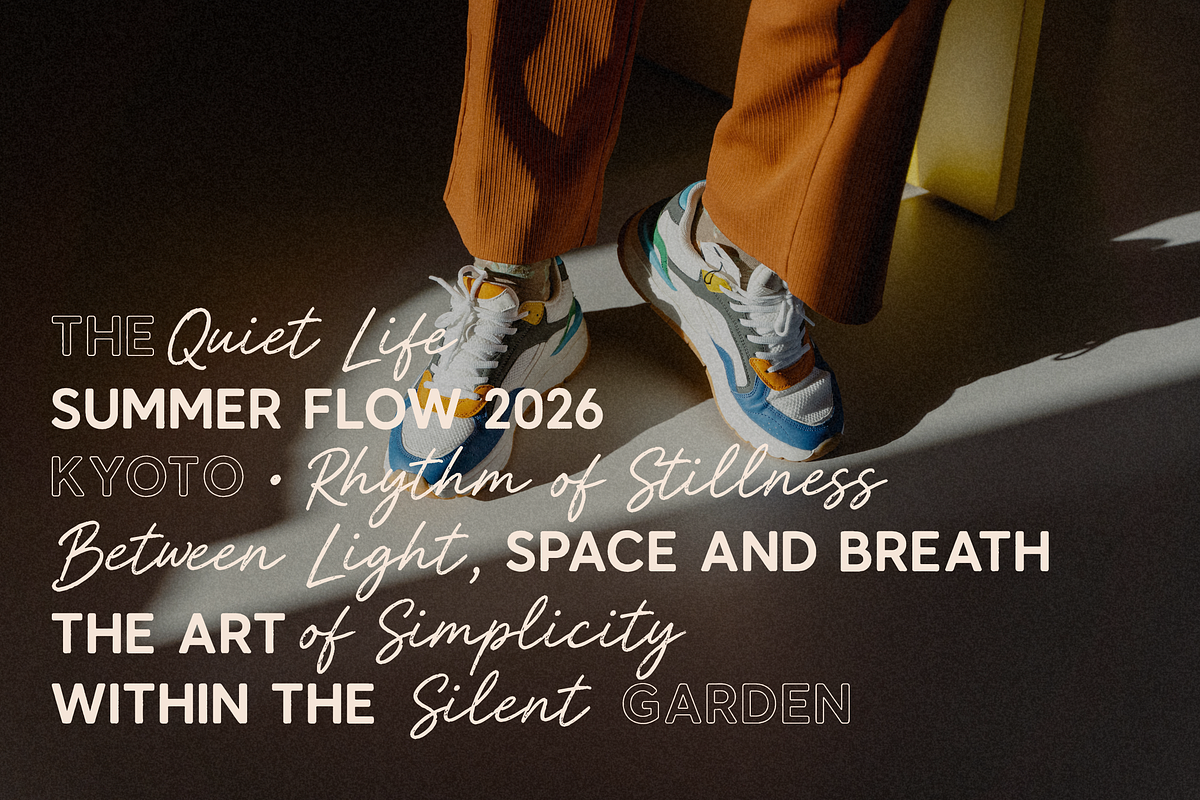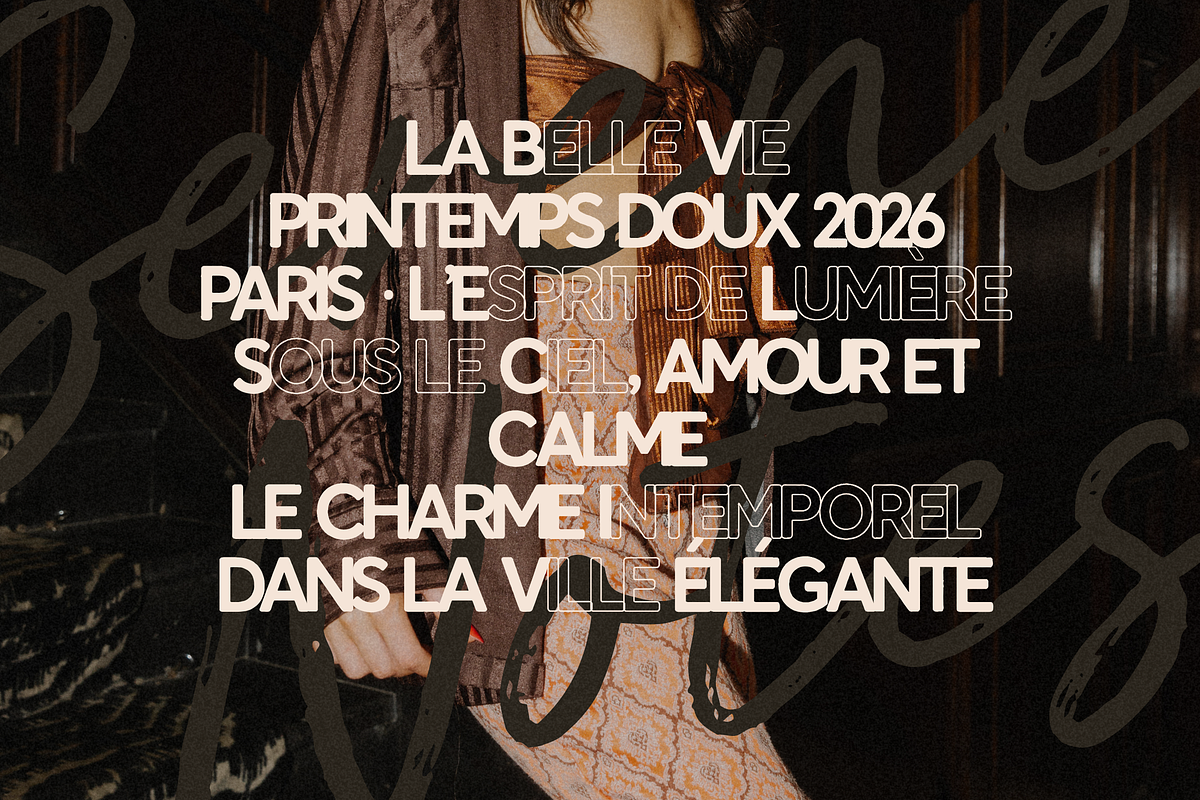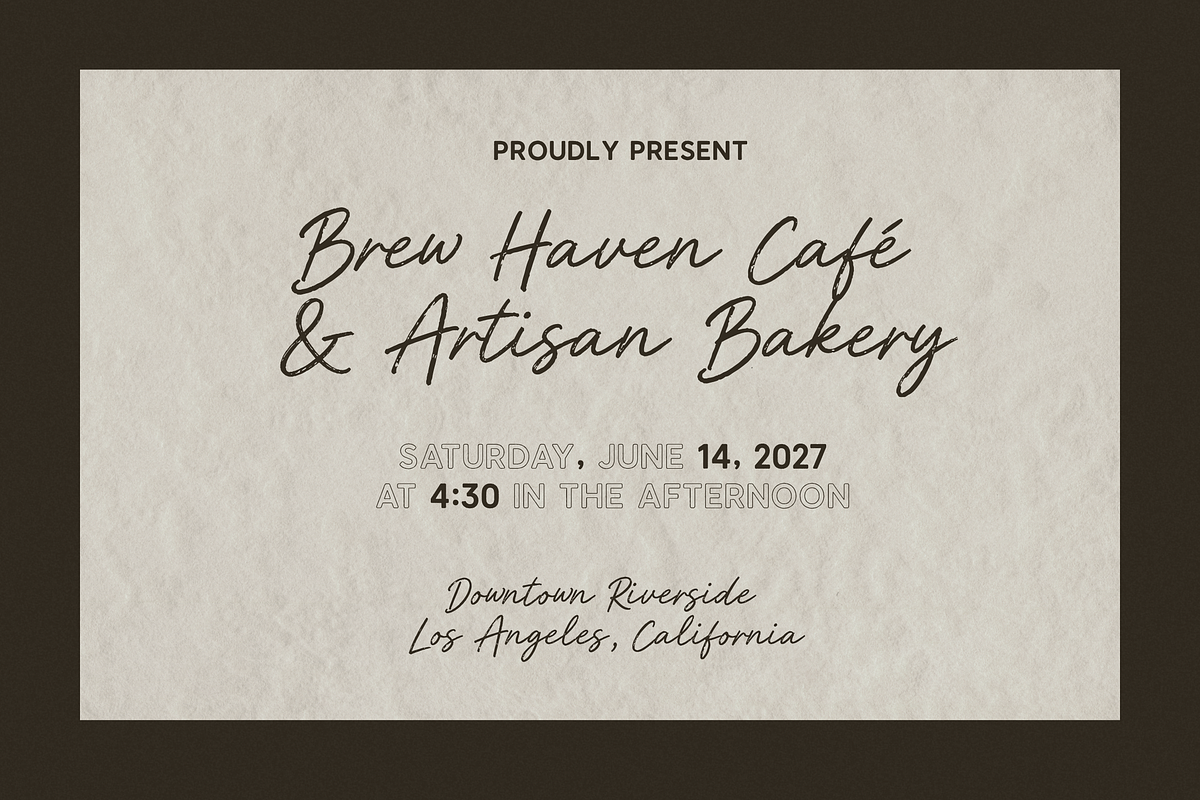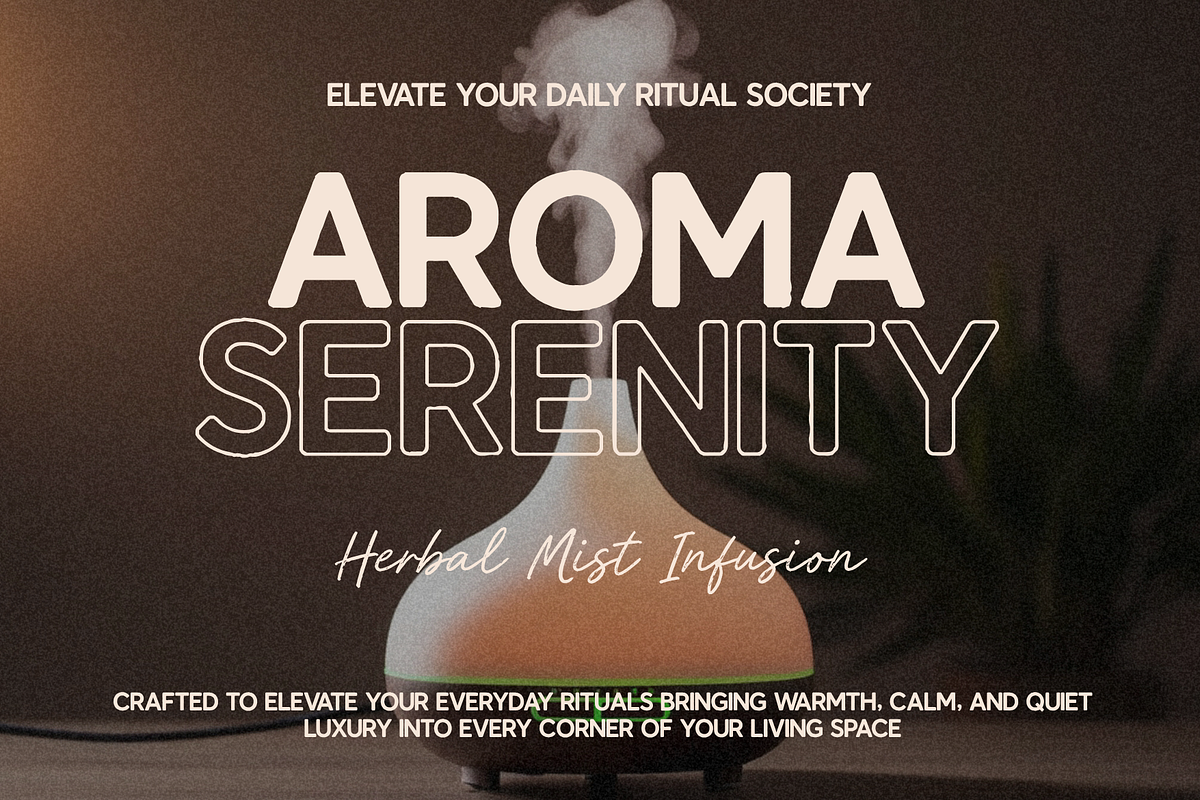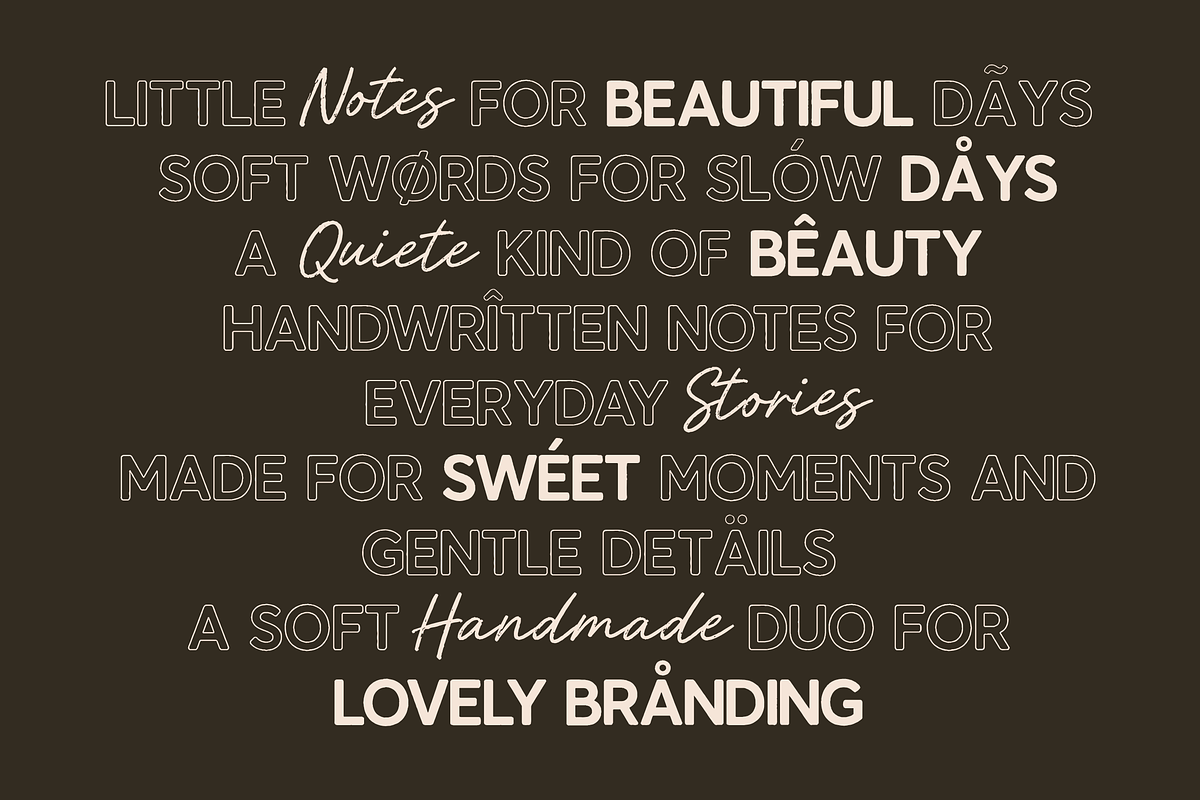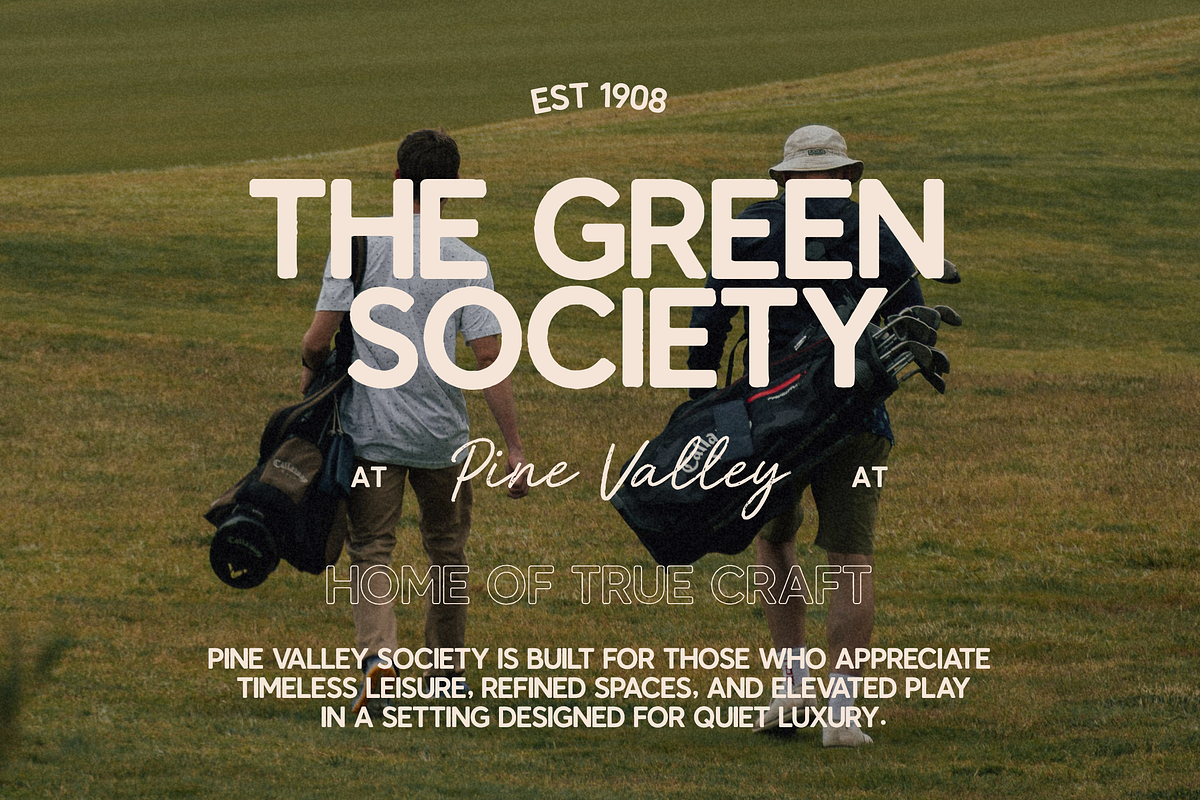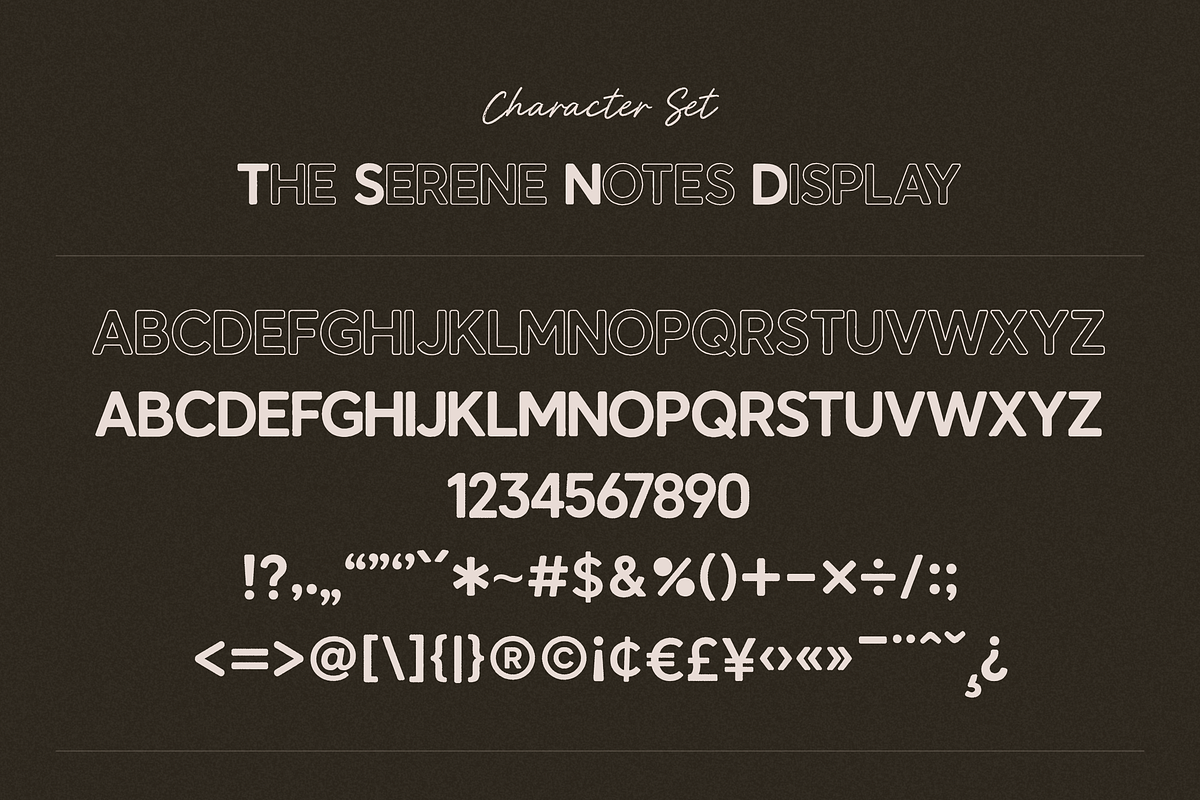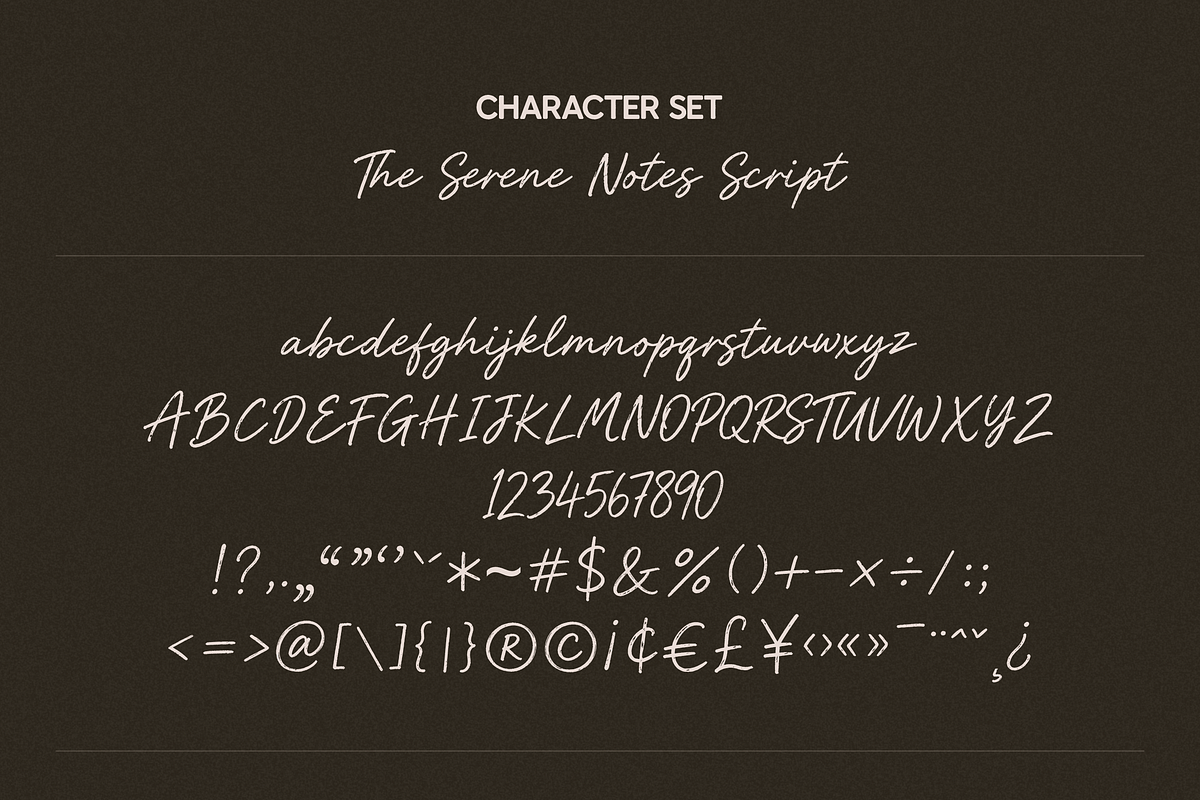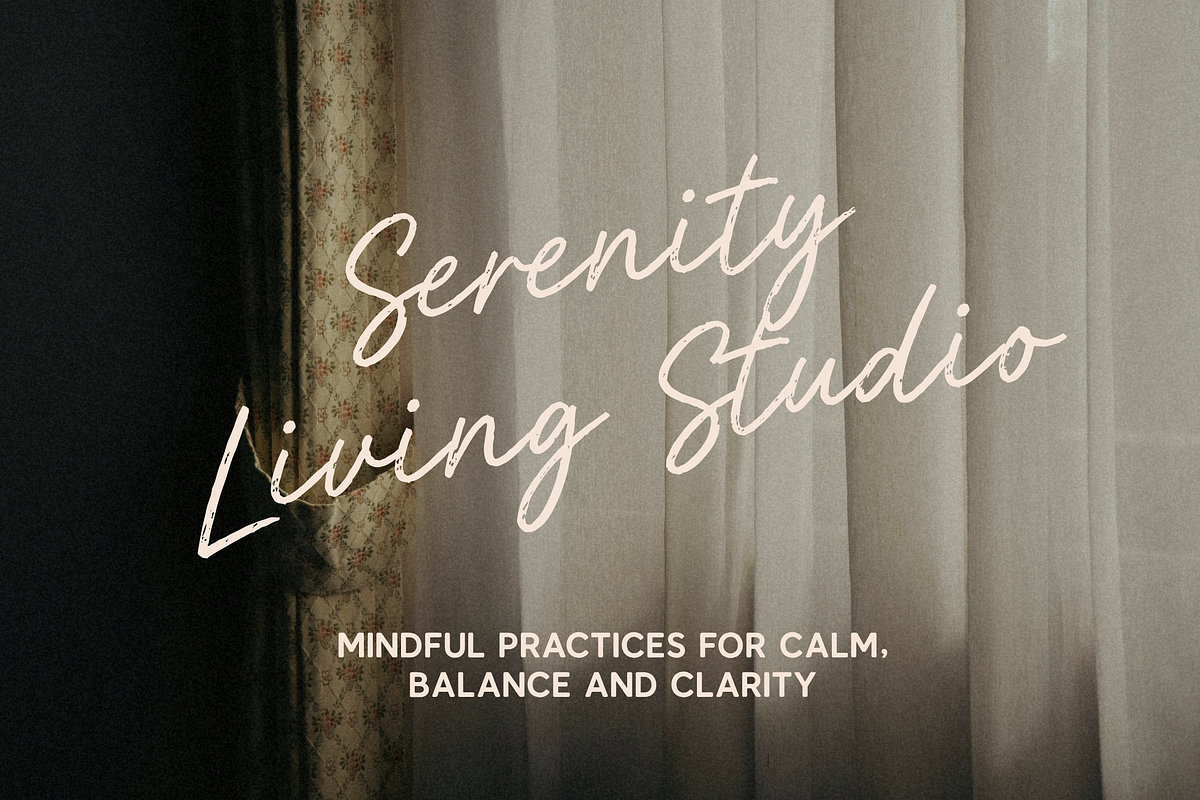
The Serene Notes Font Duo
A Soft Handmade Script & Modern Display
Bring a sense of calm, warmth, and quiet elegance into your designs with The Serene Notes — a carefully crafted font duo that blends a natural handwritten script with a clean modern display sans.
Designed to evoke mindfulness, lifestyle aesthetics, and soft luxury, this font is perfect for brands and creatives who want to communicate serenity, authenticity, and refined simplicity.
✦ What’s Included
Serene Notes Script
Smooth handwritten style
Natural flow & organic strokes
Perfect for signatures, quotes, and highlights
Serene Notes Display
Clean modern sans-serif
Bold & outline styles included
Strong readability for headlines & layouts
✦ Key Features
Uppercase & lowercase letters
Alternating styles (for visual variation)
Clean kerning & spacing
Ready for branding and editorial use
✦ Style & Feel
Soft, calm, and aesthetic
Handmade & organic
Minimalist yet expressive
Lifestyle & editorial inspired
✦ Perfect For
Branding & logos
Instagram & social media content
Lifestyle and wellness brands
Café, bakery, and boutique design
Wedding invitations & stationery
Packaging design
Editorial layouts & magazines
✦ Design Insight (Why It Works)
This font duo is built on contrast strategy:
Script = emotional, personal, human touch
Sans = structure, clarity, modern balance
This combination increases visual hierarchy + brand memorability, making it ideal for commercial use.
✦ Example Use Cases
“Quiet Luxury” branding
Mindfulness / wellness campaigns
Minimal product packaging
Aesthetic Pinterest / Canva templates